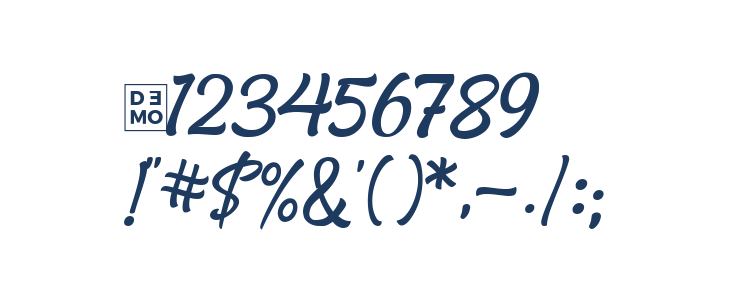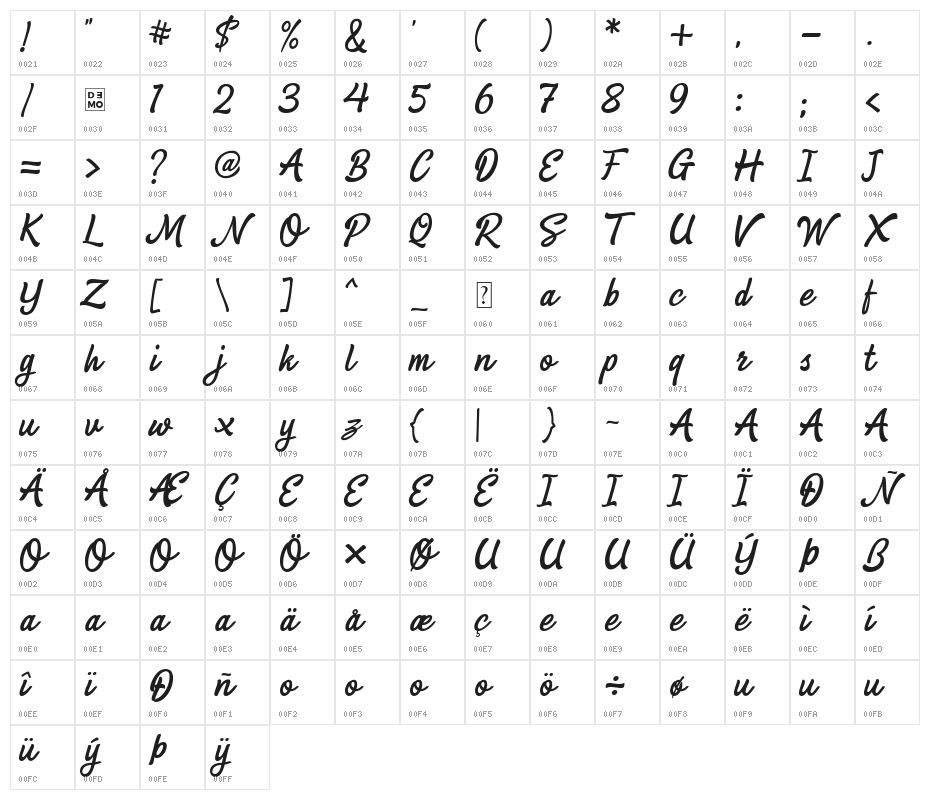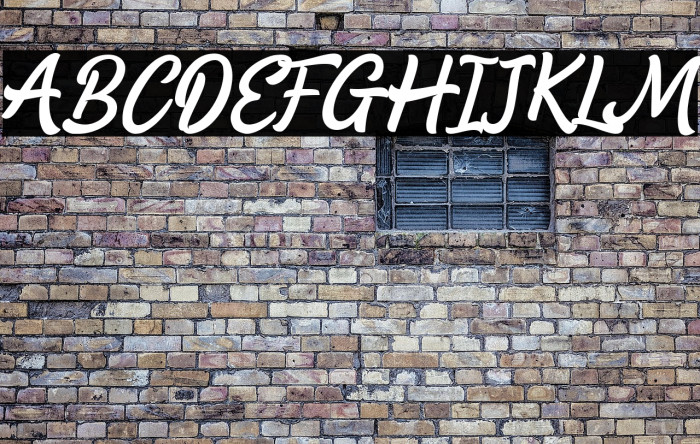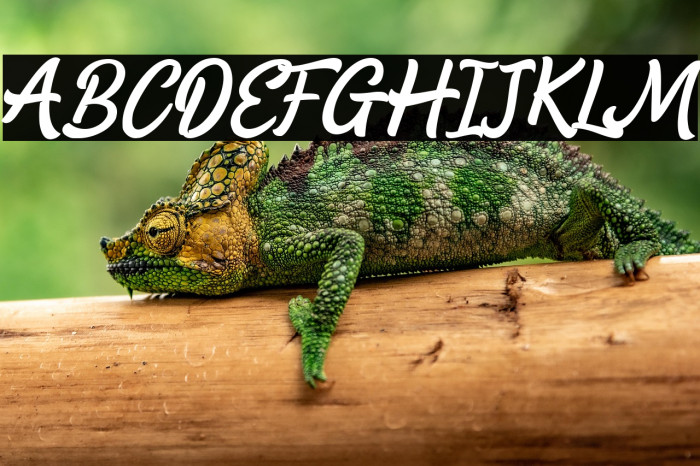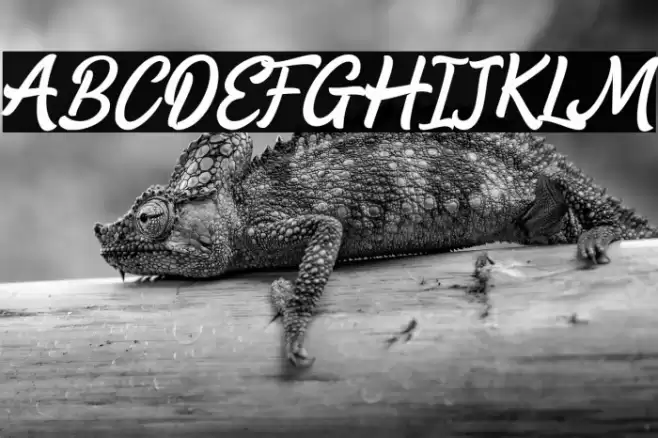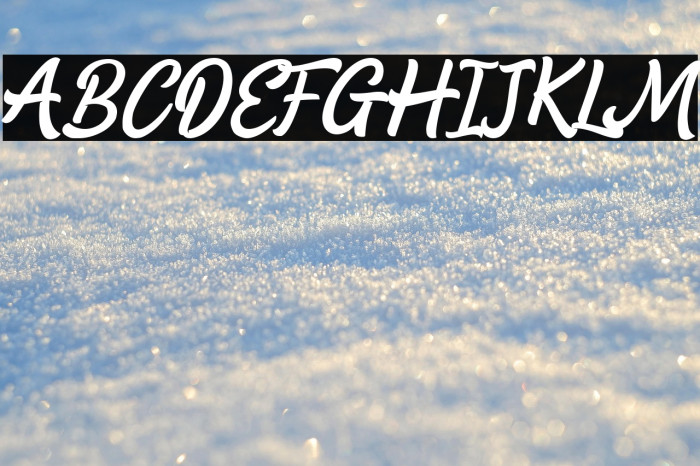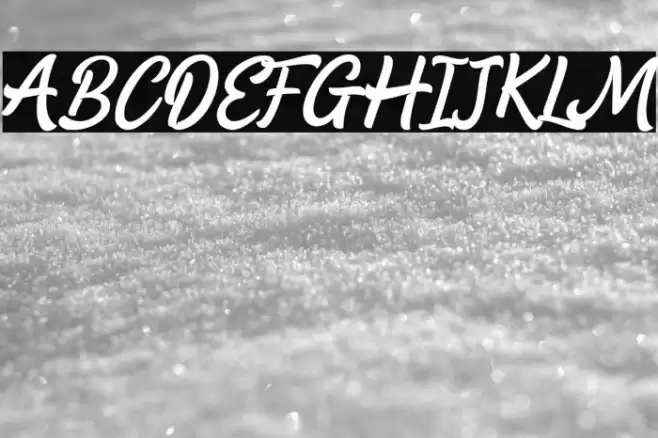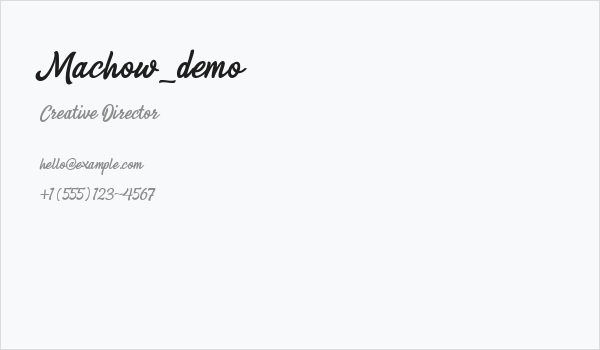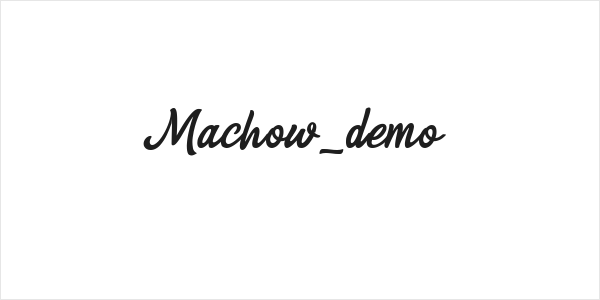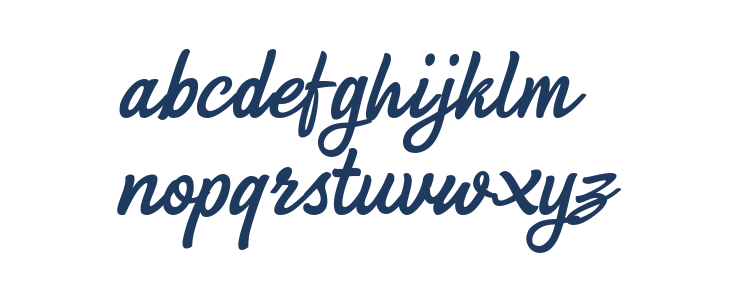
Machow_demo Font
Machow_demo Description
This font features a dynamic and fluid script style, characterized by its elegant and flowing cursive letters. The uppercase letters are bold and expressive, while the lowercase letters maintain a consistent rhythm, enhancing readability. The numerals are well-proportioned, complementing the overall aesthetic. Special characters are designed with the same attention to detail, ensuring they integrate seamlessly with the rest of the typeface. The strokes are smooth and connected, giving a sense of movement and grace. This font is ideal for projects that require a personal touch or a sense of sophistication.